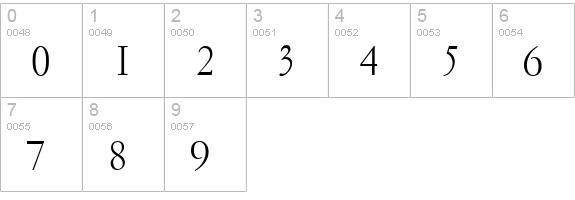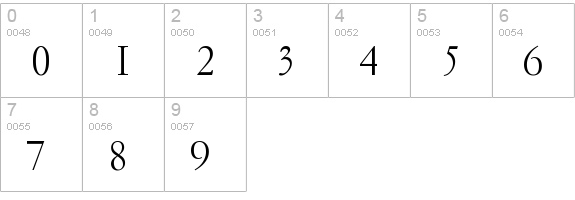
GarfeldSerial-Xlight font is a sleek and modern typeface that exudes sophistication and elegance. Its clean lines and subtle curves make it perfect for a wide range of design projects, from branding to editorial layouts. The light weight of the font adds a touch of delicacy and refinement to any text. What makes GarfeldSerial-Xlight font even more appealing is that it is completely free to use. You can download this versatile font at FontsMarket.com without any cost, making it accessible to designers, creatives, and enthusiasts alike. Whether you're working on a personal project or a professional assignment, GarfeldSerial-Xlight font is a fantastic choice that will elevate your designs to the next level.